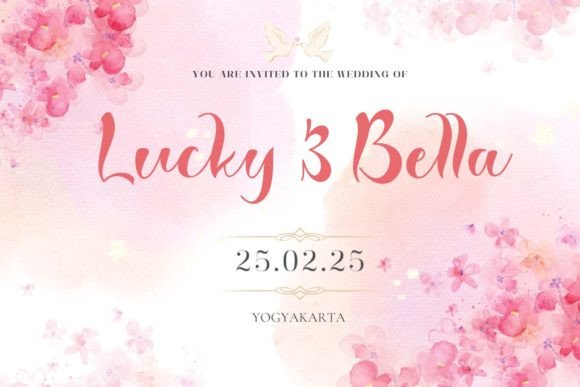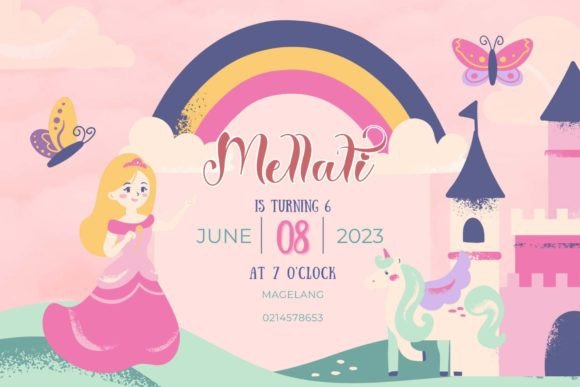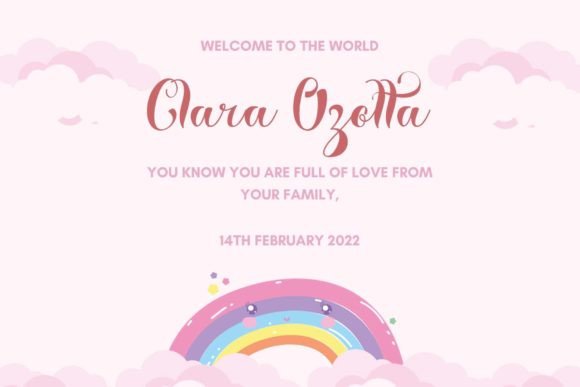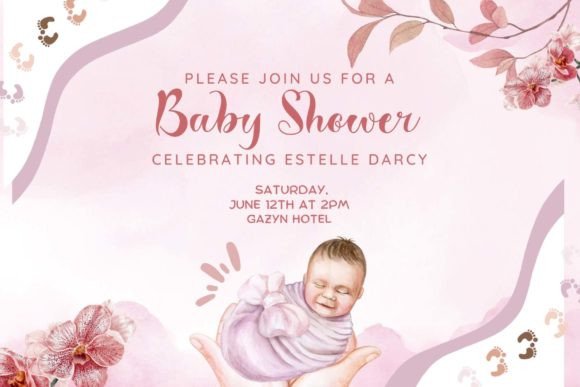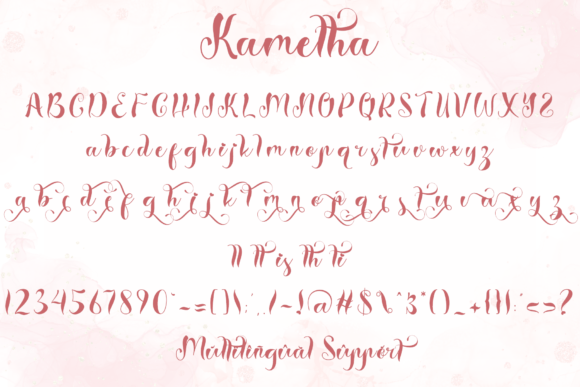
Introduction to Kametha Font
“Kametha” is a beautiful and elegant handwritten font.
This font is equipped with uppercase, lowercase, numerals, punctuation, and multilingual support It is suitable for Christmas, summer, the 4th of July, graduation, a wedding, engagement and others.
Key Features of Kametha Font
Why Choose Kametha Font?
Kametha Font offers exceptional quality and versatility, making it a valuable addition to your design toolkit. Whether you’re creating for personal projects or commercial use, Kametha Font delivers professional results.